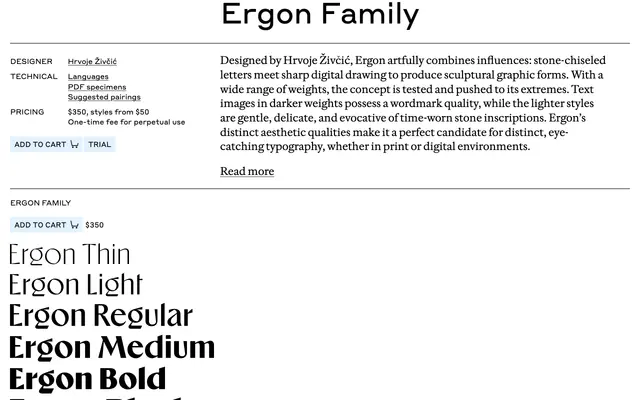
Ergon Family
A sculptural incised serif by Hrvoje Zivcic that fuses chiseled stone letterforms with sharp digital drawing across a wide weight range.
An incised display serif by Hrvoje Zivcic that pulls stone-chiseled letterforms together with sharp digital drawing to produce sculptural graphic forms. Across a wide weight range the design is pushed to its extremes: darker weights take on a wordmark quality, while lighter cuts feel gentle and evocative of weathered stone inscriptions. Suits identity, luxury, heritage and editorial work that wants distinct, eye-catching typography across print and digital.
Commercial Type describe Ergon as a sculptural display serif by Hrvoje Zivcic combining stone-chiseled letterforms with sharp digital drawing. Wide weight range pushes the concept to extremes, from wordmark-heavy darks to delicate, weathered-stone lights.